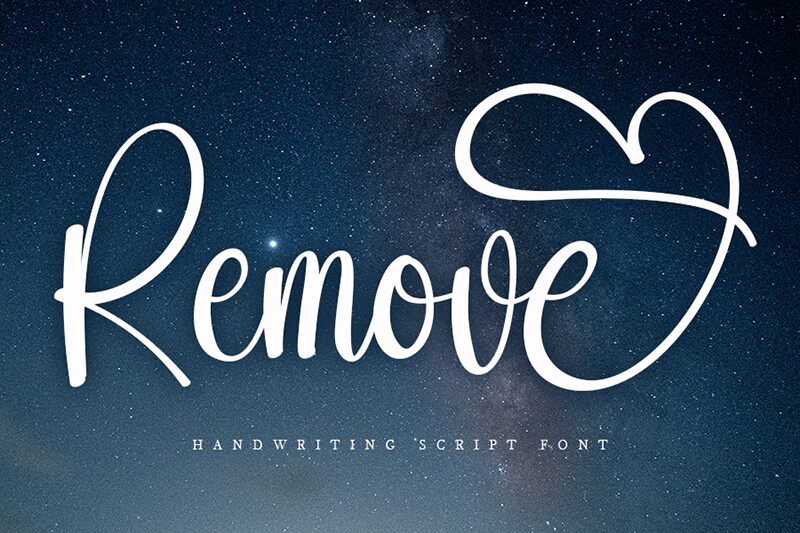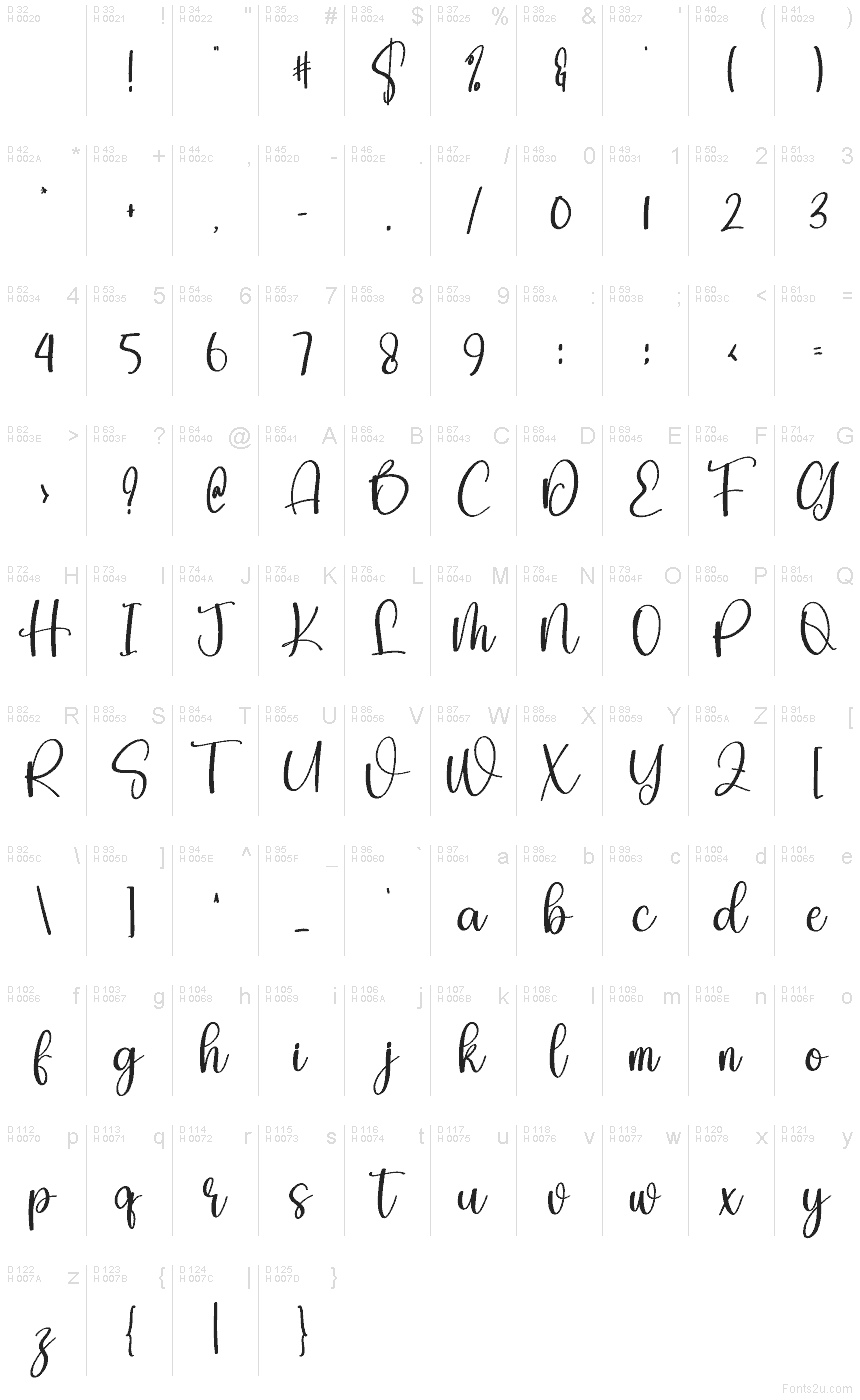
Remove
Remove font by Creatype Designer is a free handwritten script typeface with smooth, inky curves and generous loops that feel like a confident signature. Its flowing connections and rounded forms give each word a friendly, polished rhythm, so your text looks styled without feeling stiff or overproduced.
Using Remove, this free font shines on wedding invitations, boutique logos, social media quotes, product packaging, greeting cards, Etsy banners, and blog headers. The letters stay legible even at smaller sizes, while larger settings show off the graceful swashes. For a clean, modern balance, pair Remove with a simple sans serif for body text.